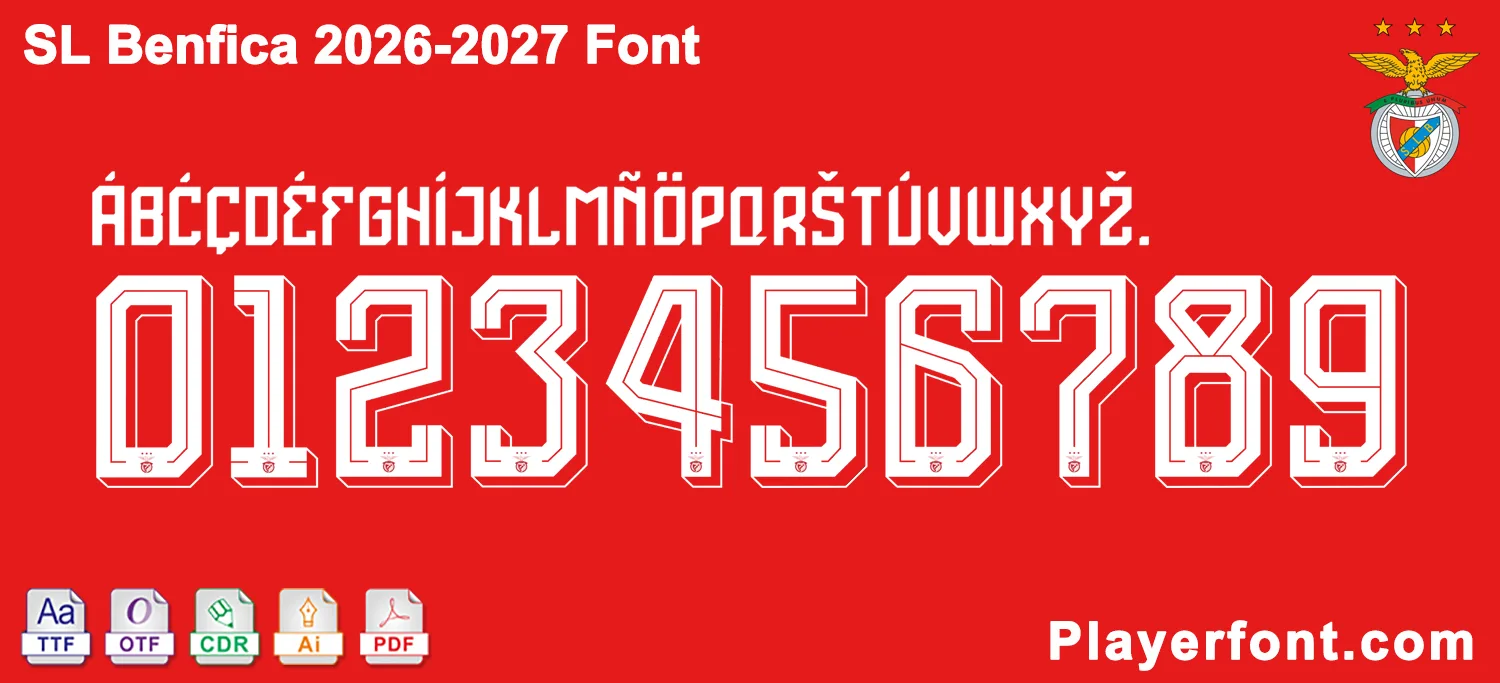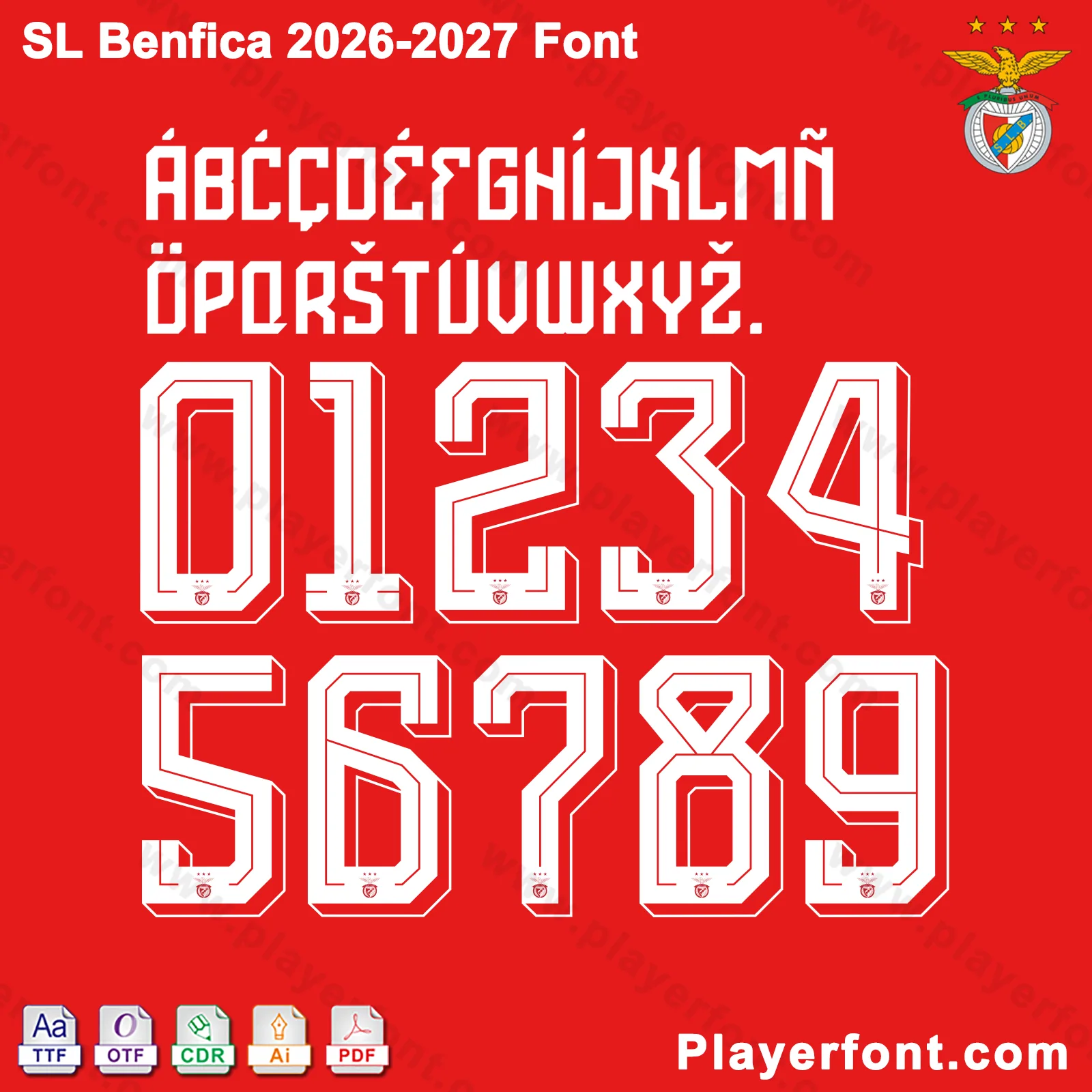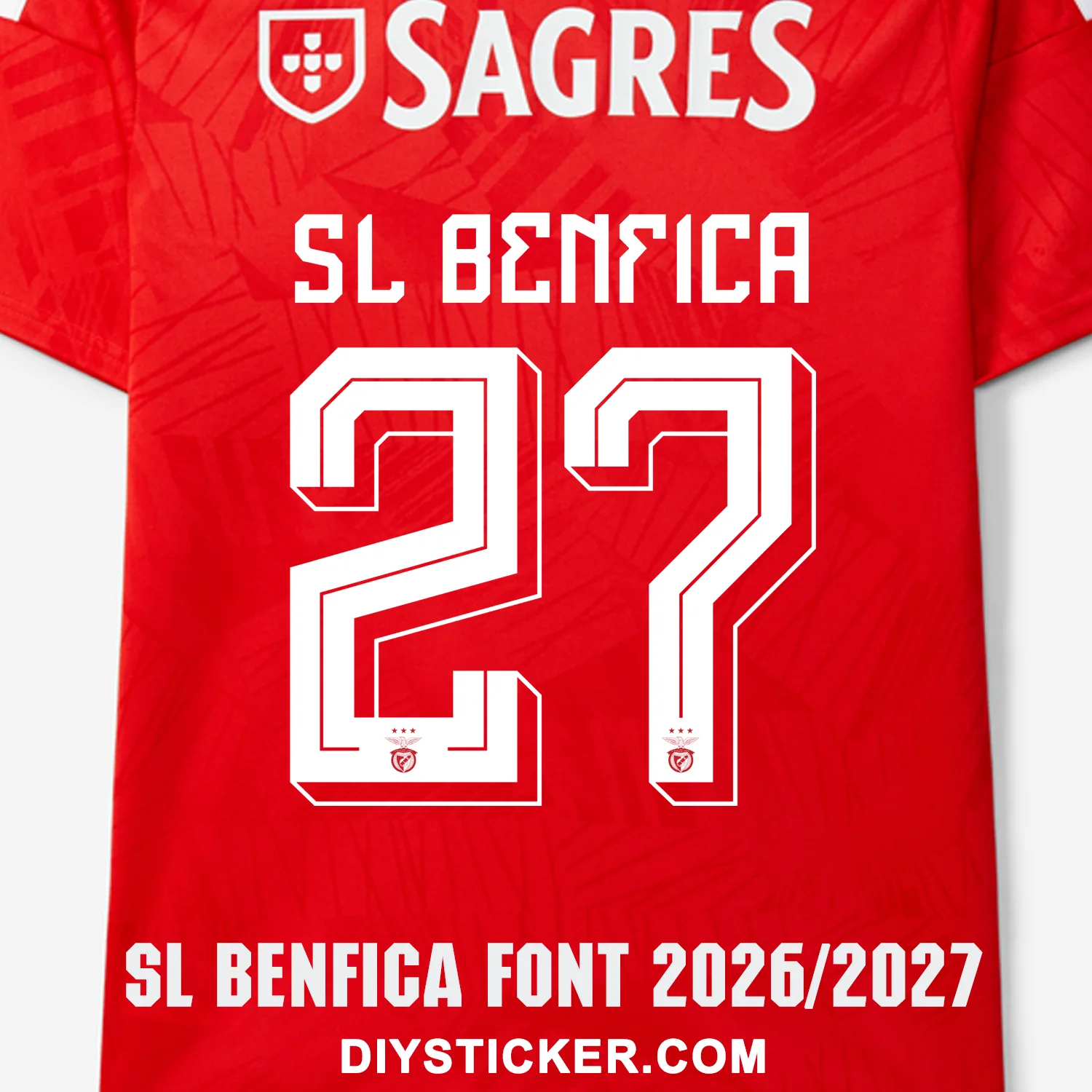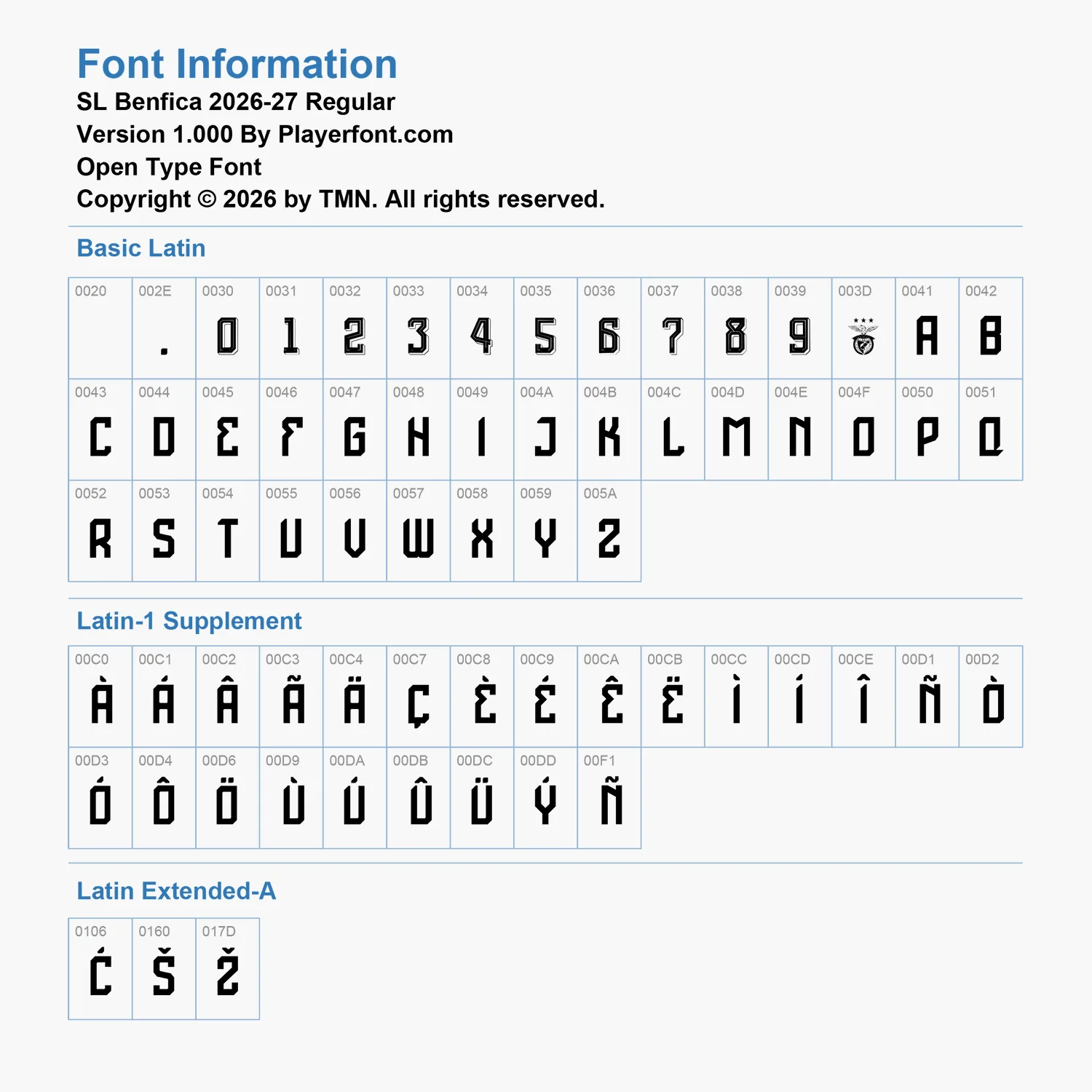
Elevate your sports jersey mockups, football custom graphics, and vector apparel printing projects with the high-quality SL Benfica 2026-2027 Font Download. Masterfully engineered by Playerfont.com, this high-performance typography set replicates the official-style modern block numbers and clean lettering featured on the pitch for the 2026-27 Liga Portugal and European campaigns.
Key Typography Features & Character List:
This typography pack is fully optimized to support international player rosters and diverse numbering layouts:
- Basic Latin Set: Contains the complete A-Z uppercase character set, clean block numbers (0-9), punctuation marks, and hyphens.
- Advanced International Accent Support: Includes a complete set of accents (such as Á, Â, Ã, É, Ê, Í, Ó, Ô, Õ, Ú) ensuring flawless rendering for Portuguese and global league stars.
- Authentic Club Details: The intricate SL Benfica club crest is beautifully embedded right into the base of each jersey number for maximum design authenticity.
| Design Feature | Modern Block Geometry with Solid Fills & Embedded Eagle Crest |